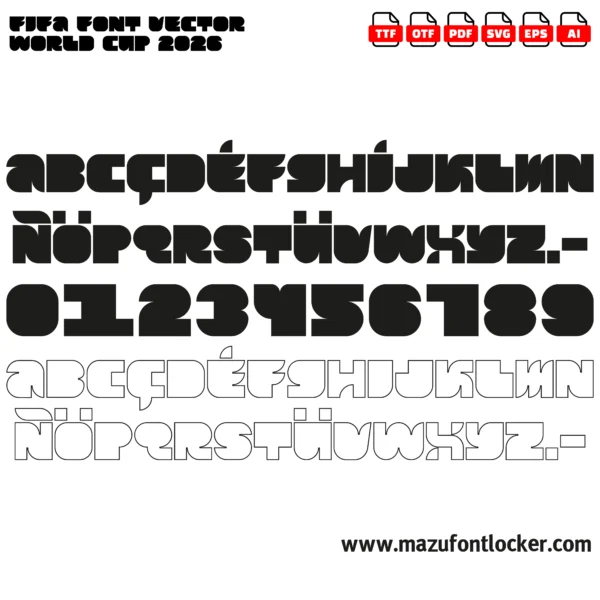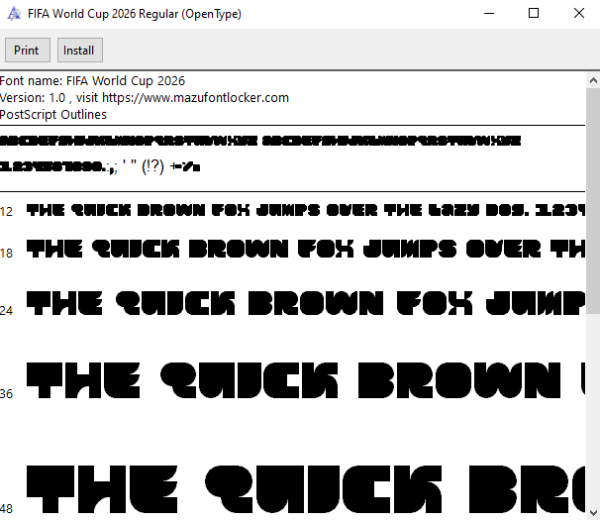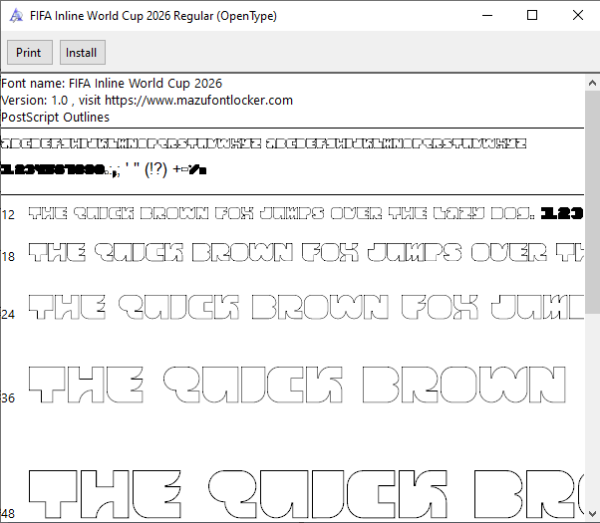
FIFA World Cup 2026 Font Vector – Epic Global Glory Triumphant Masterpiece
This premium font captures the commanding, iconic, majestic, and battle-ready lettering that embodies the unstoppable World Cup spirit — delivering raw universal fire, explosive winning energy, relentless never-say-die mentality, tactical supremacy, and legendary global football warrior grit.
FIFA World Cup 2026 Font Vector – Authentic Tournament Typeface
The FIFA World Cup 2026 Font Vector is a premium typeface that accurately recreates the official and modern lettering used across the FIFA World Cup 2026 tournament branding. This high-quality vector font kit captures the bold, dynamic, and global typography that represents the biggest football event on Earth, uniting nations and celebrating the beautiful game.
Why Choose FIFA World Cup 2026 Font Vector
This font stands out because of its sharp vector precision and strong tournament identity. Every letter and number is crafted to match the contemporary style seen in World Cup 2026 branding and matchday assets. Whether you are creating official-style templates or exciting global football content, the FIFA World Cup 2026 Font Vector gives your designs that authentic stadium atmosphere.
The letterforms in the FIFA World Cup 2026 Font Vector are bold, clean, and highly readable. The strokes feature modern geometric construction combined with dynamic athletic styling, creating a premium appearance that stands out in digital and print while capturing the excitement of the world’s greatest football festival.
The numerals feature strong curves and sharp, precise edges, delivering a confident and premium appearance. This vector design ensures flawless scalability and excellent legibility across both print and digital applications.
• Full uppercase A–Z and numbers 0–9 in authentic FIFA World Cup 2026 style
• Includes the exact trophy glyph for authentic branding
FIFA World Cup 2026
The FIFA World Cup 2026 will be the first 48-team tournament, jointly hosted by Canada, Mexico, and the United States. This expanded edition promises to be the biggest and most spectacular World Cup in history, celebrating football’s global unity across three nations and dozens of iconic stadiums.